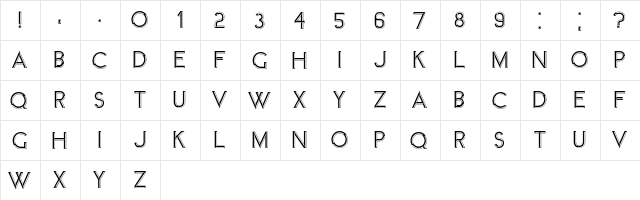
Member Regular
Design Context for Member Typeface
Member takes a measured approach to typography — its balanced proportions and neutral character make it a reliable workhorse for both digital and print work.